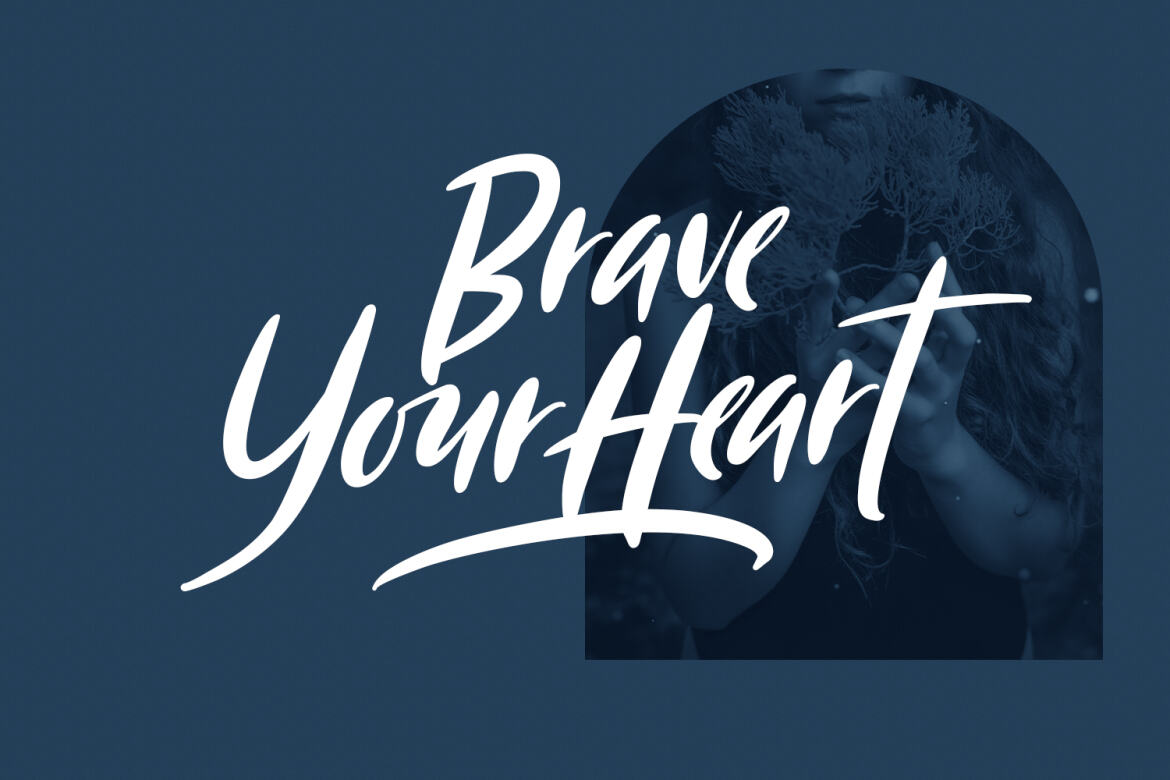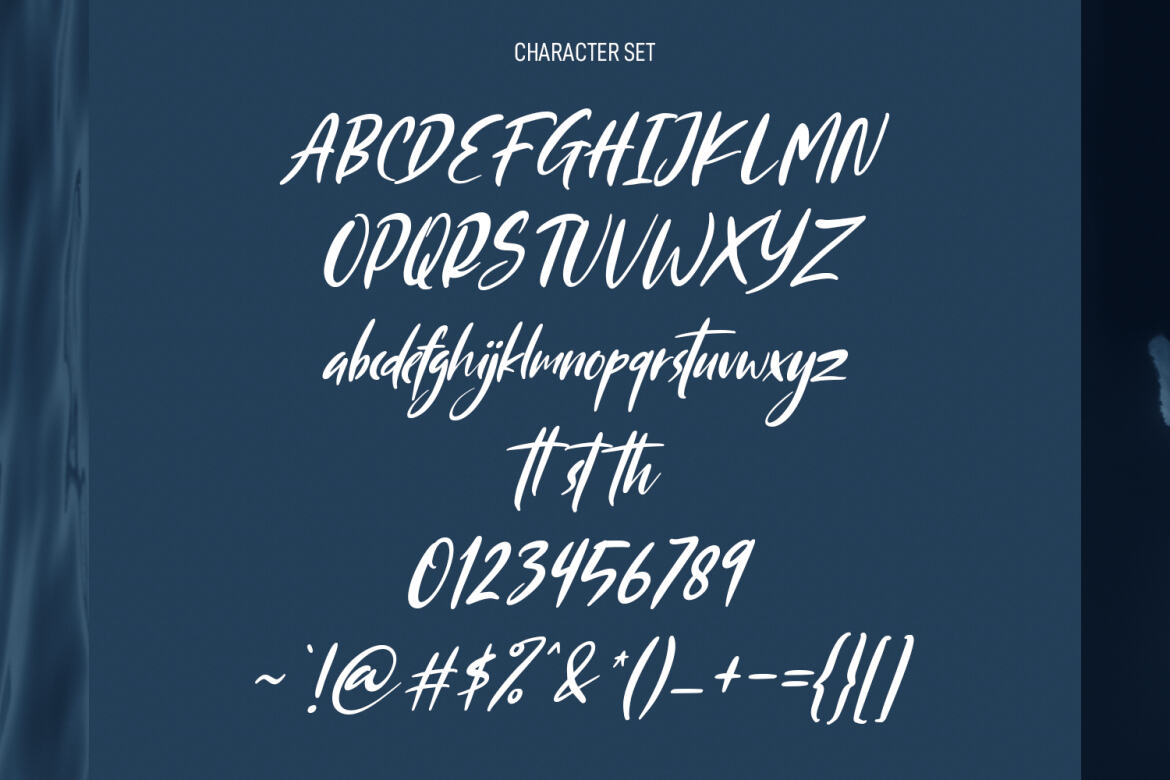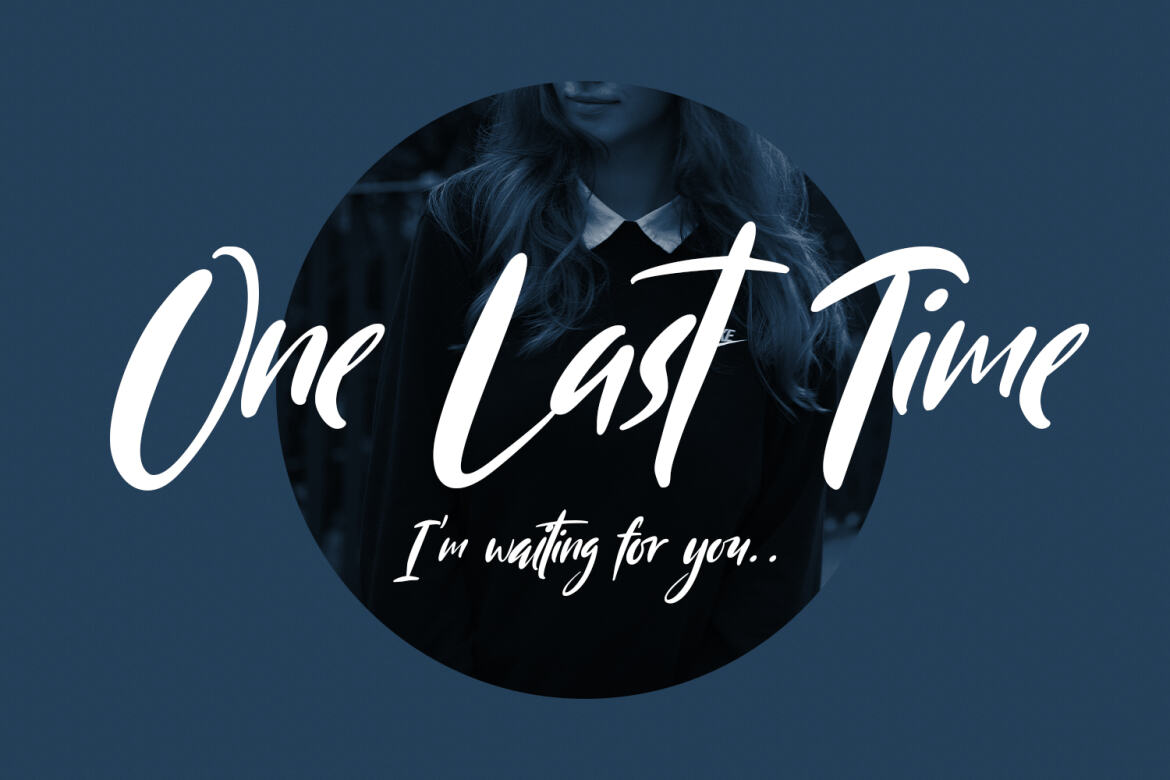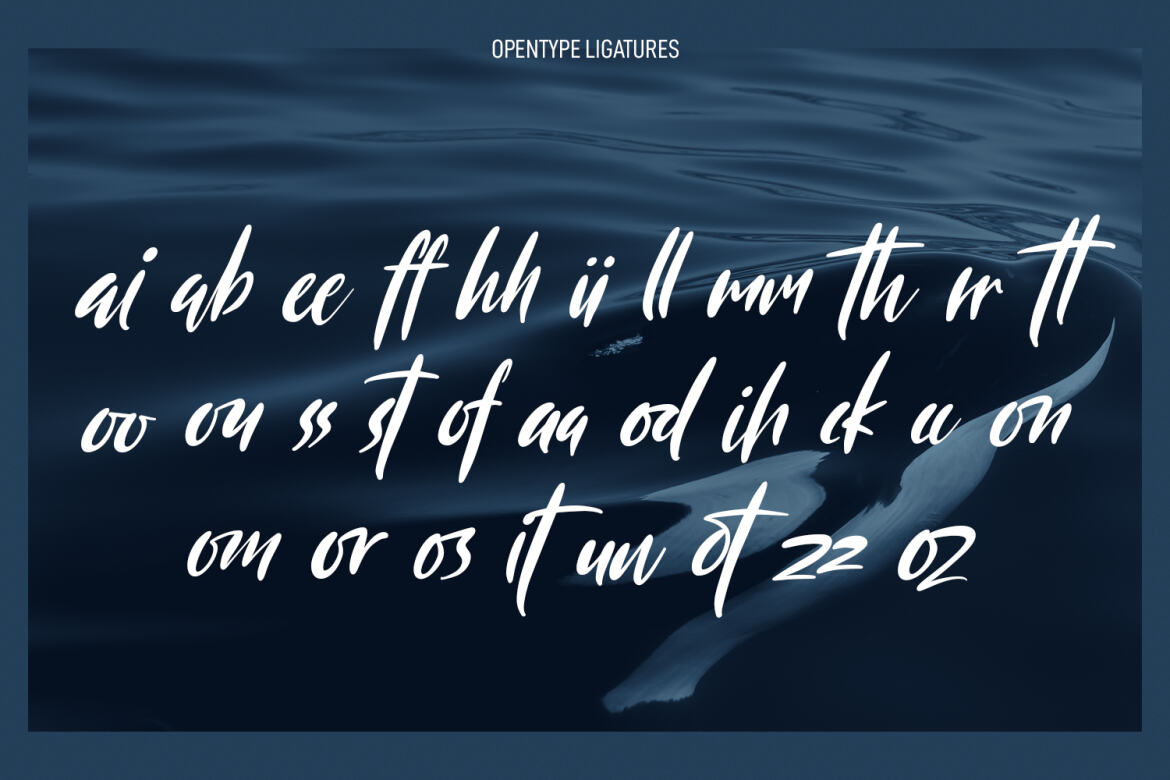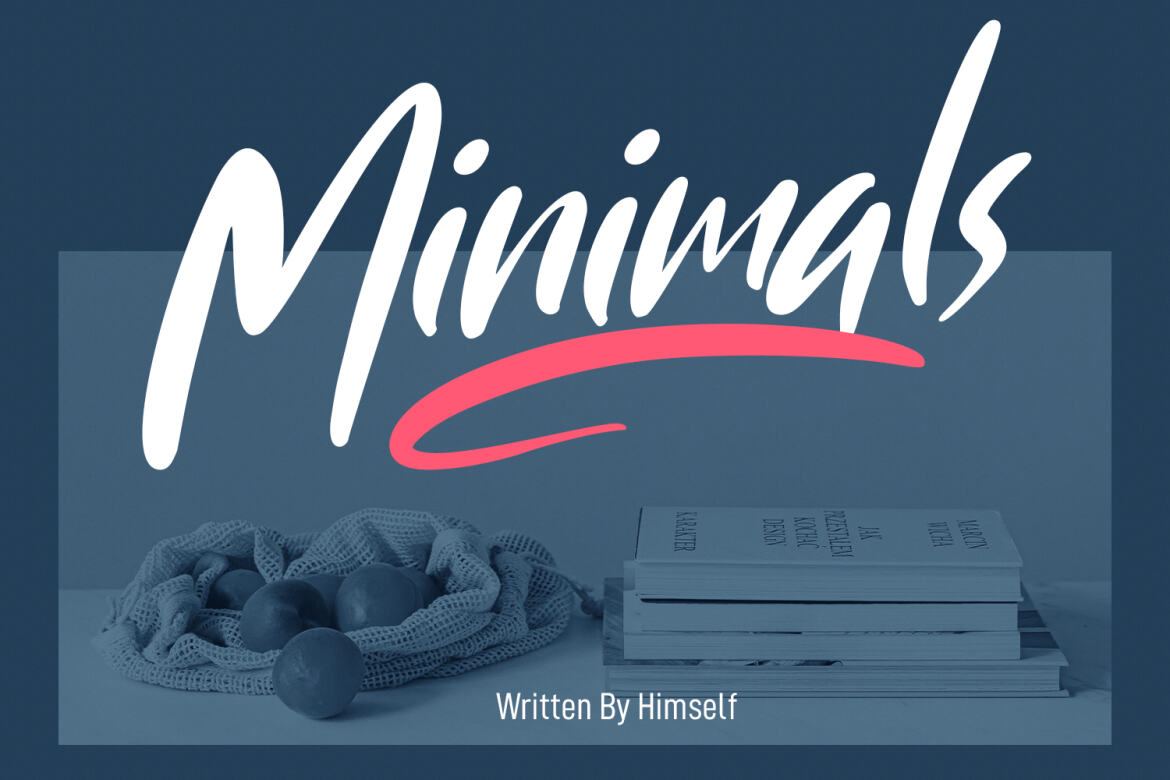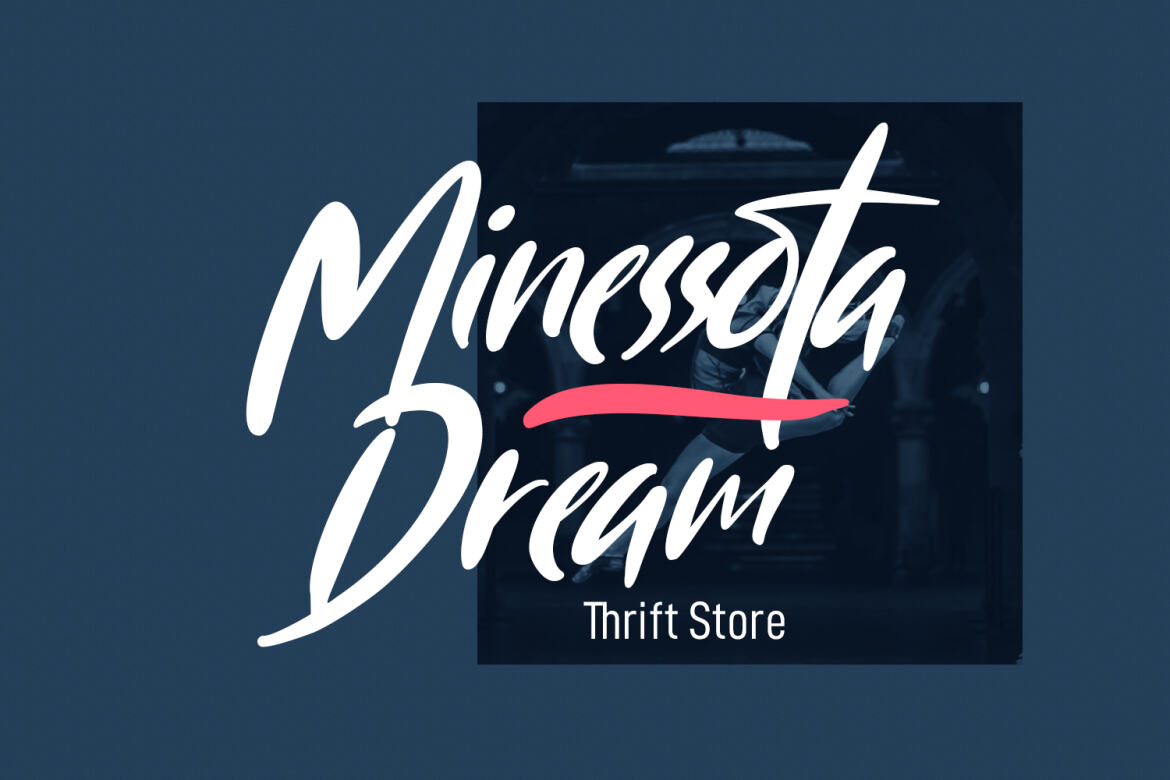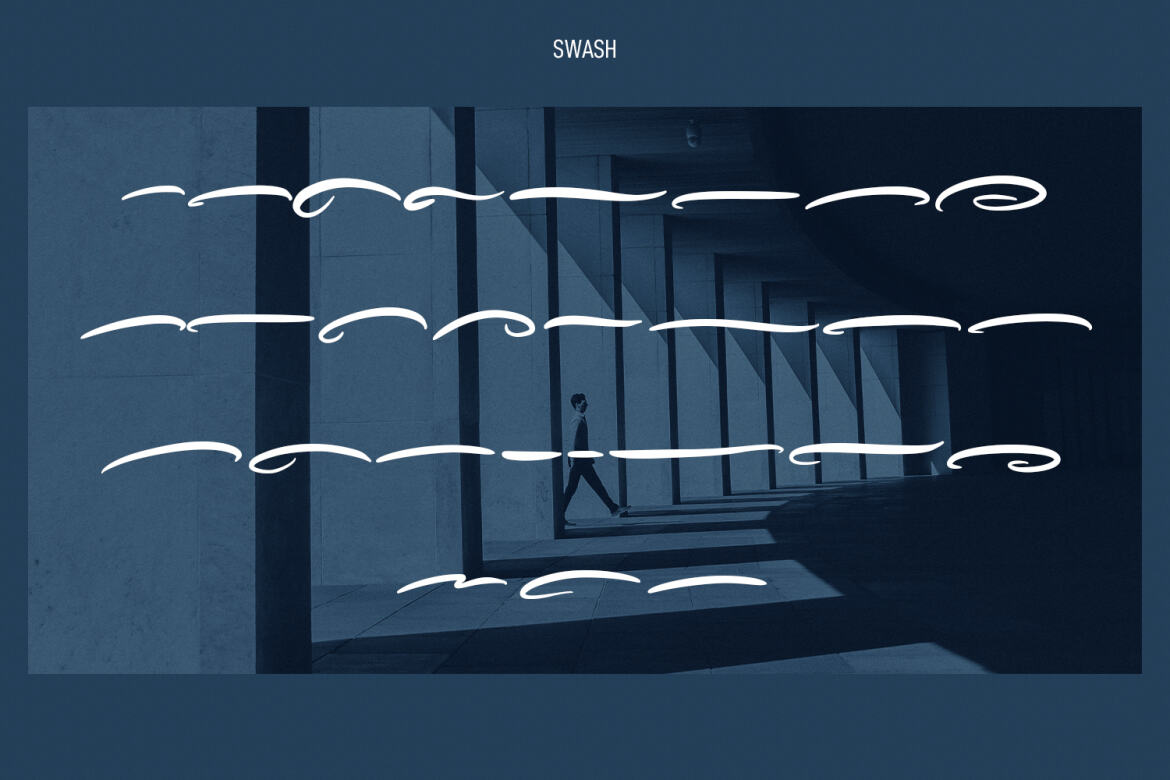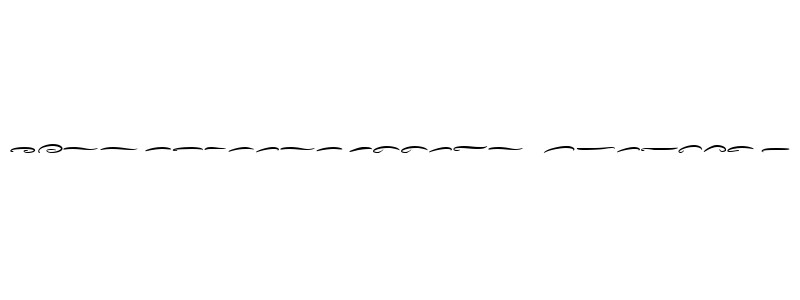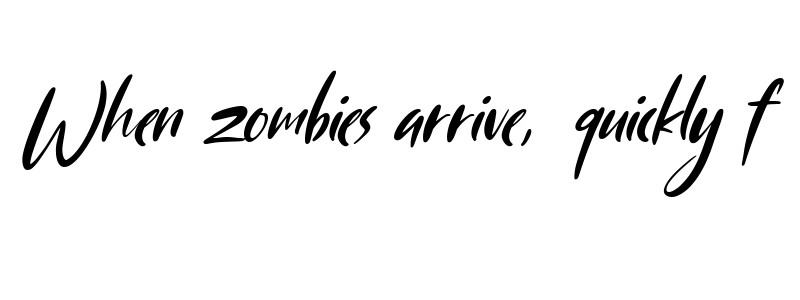
Monstores FREE Funny Font
Monstores is a fancy signature script font. With slanted felt-tip stroke, fun character with a bit of ligatures, swashes and alternates. To give you an extra creative work. Monstores font support multilingual more than 100+ language. This font is good for logo design, Social media, Movie Titles, Books Titles, a short text even a long text letter and good for your secondary text font with sans or serif. Make a stunning work with Monstores font.